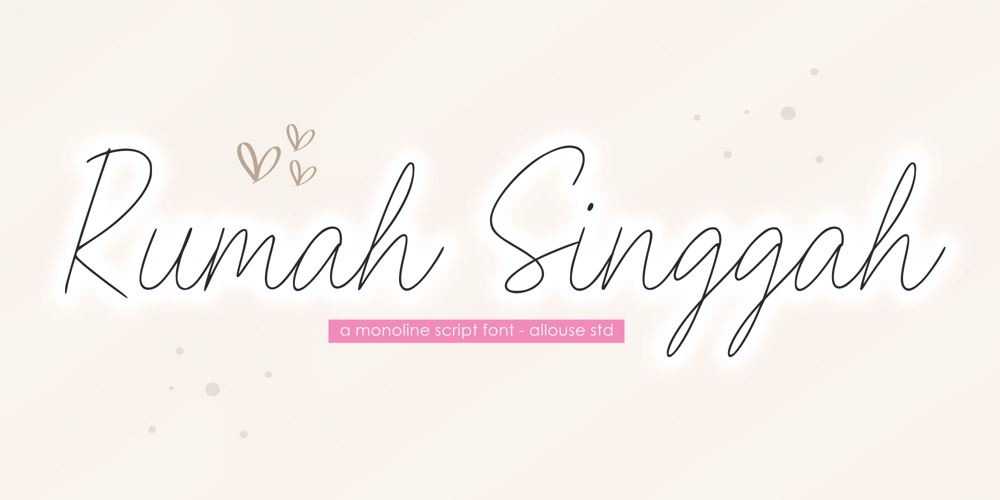
Rumah Singgah Font Family was designed by Fachrizal Yusuf and published by Allouse Studio. Rumah Singgah contains 1 styles and family package options. Proudly Presenting, Rumah Singgah A Monoline Script FontRumah Singgah is perfect for any titles, logo, product packaging, branding project, megazine, social media, wedding, or just used to express words above the background.Rumah Singgah also come with Multi-Lingual Support.Enjoy the font, feel free to comment or feedback, send me PM or email. Thank You!